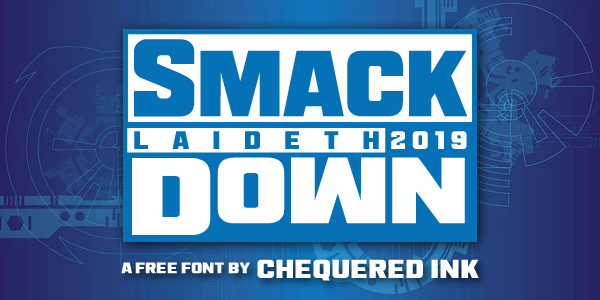
Preview and download Smack Laideth Down 2019 Font. Created by Chequered Ink in Basic Sans serif styles with 100% Free license.
Inspired by the 2019 SmackDown logo. Free to use, intended for SmackDown-based fan works. |